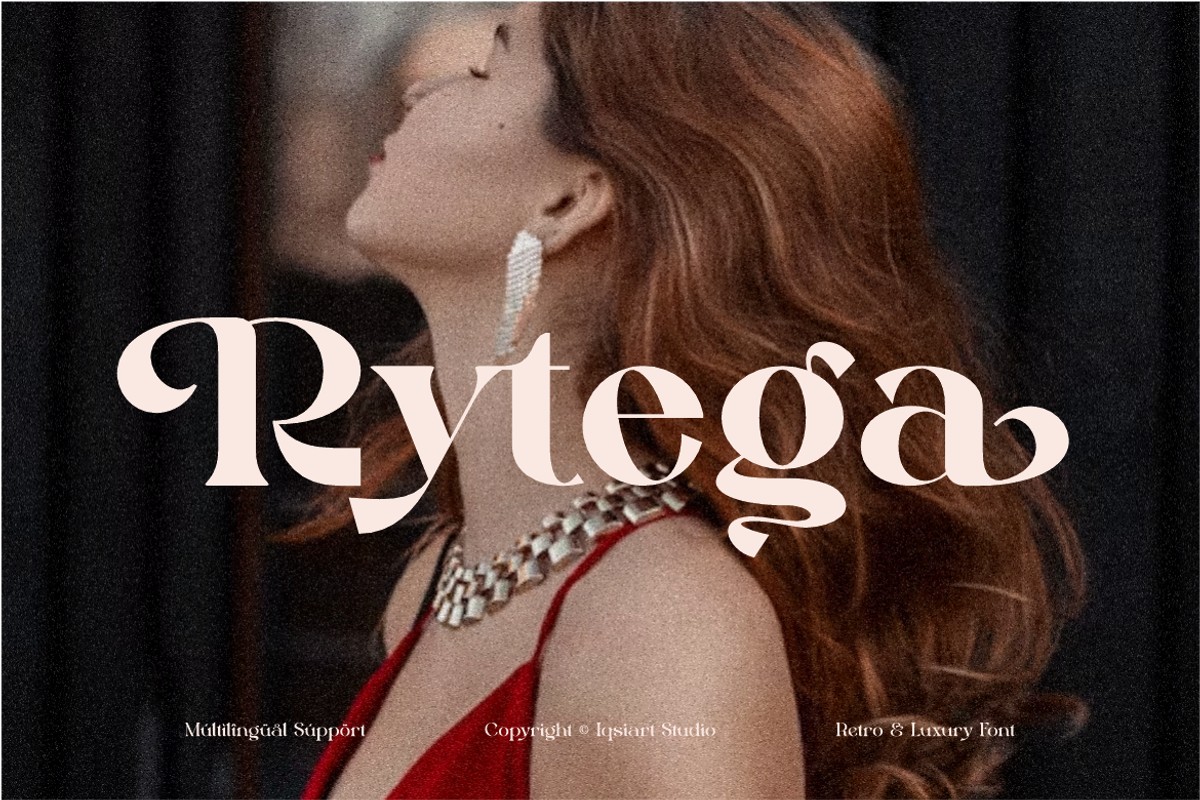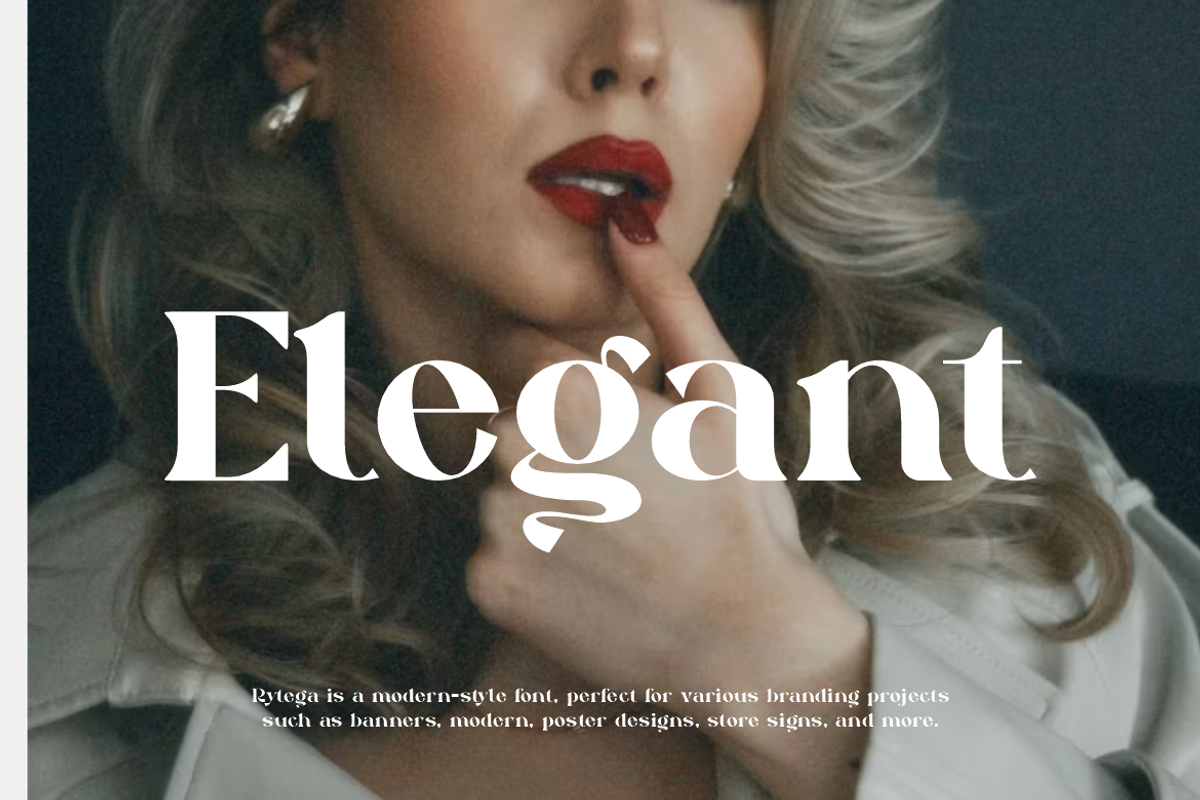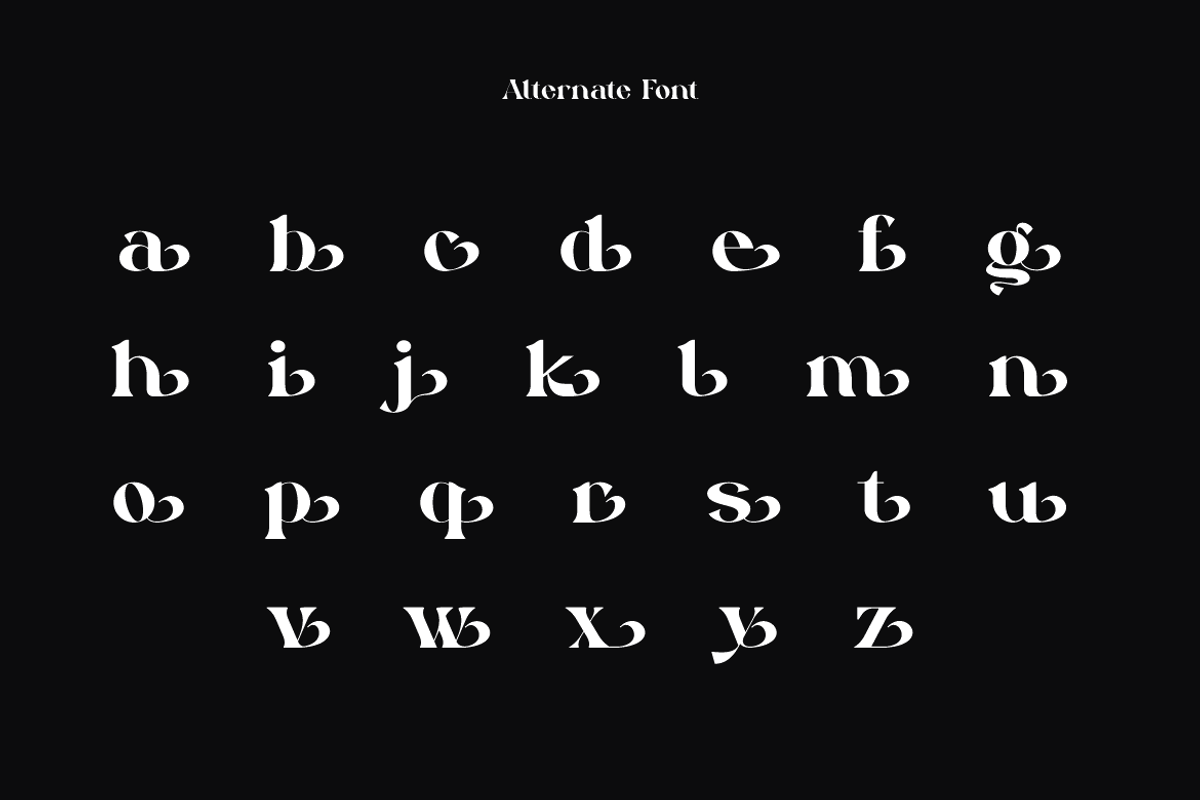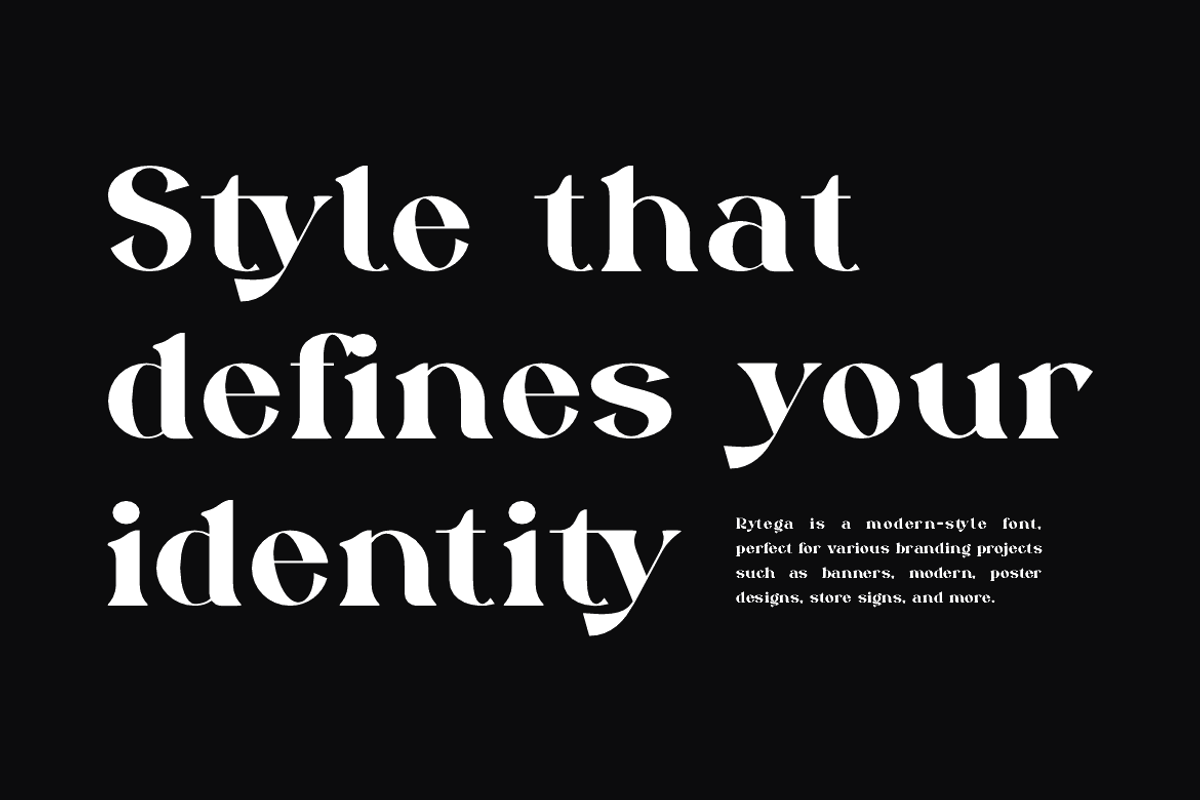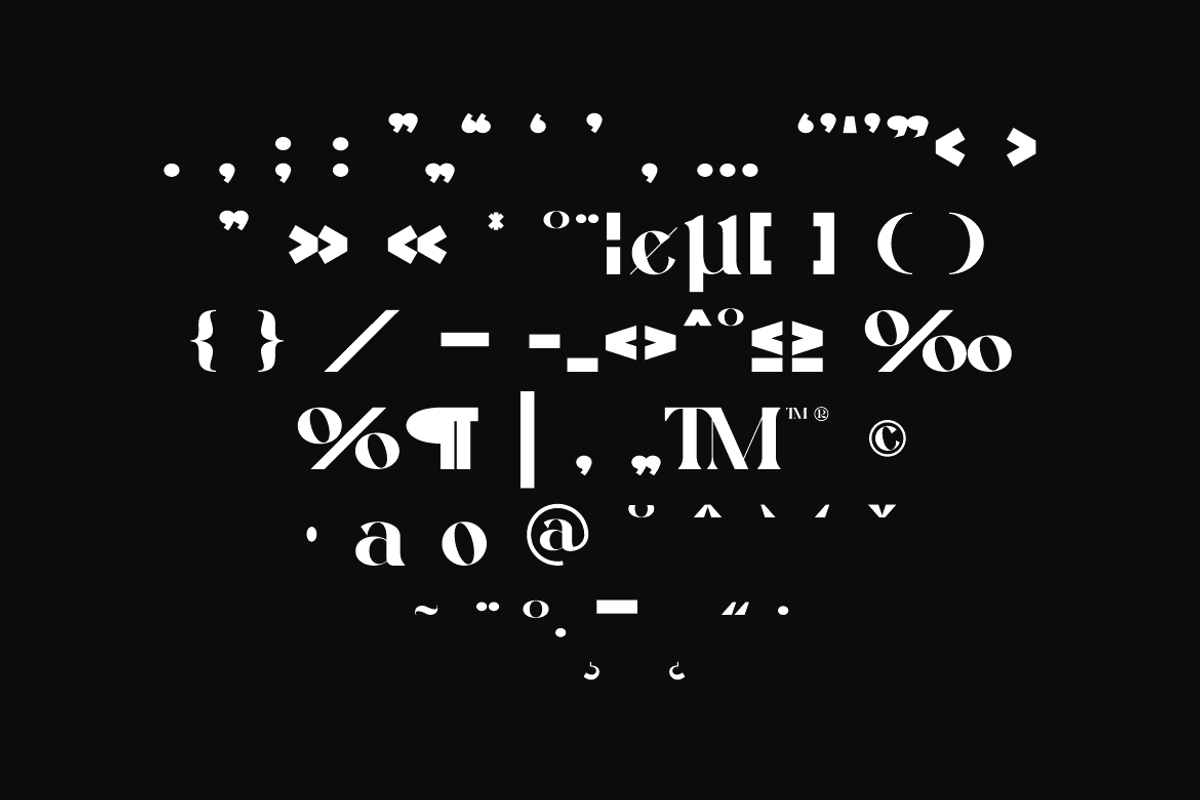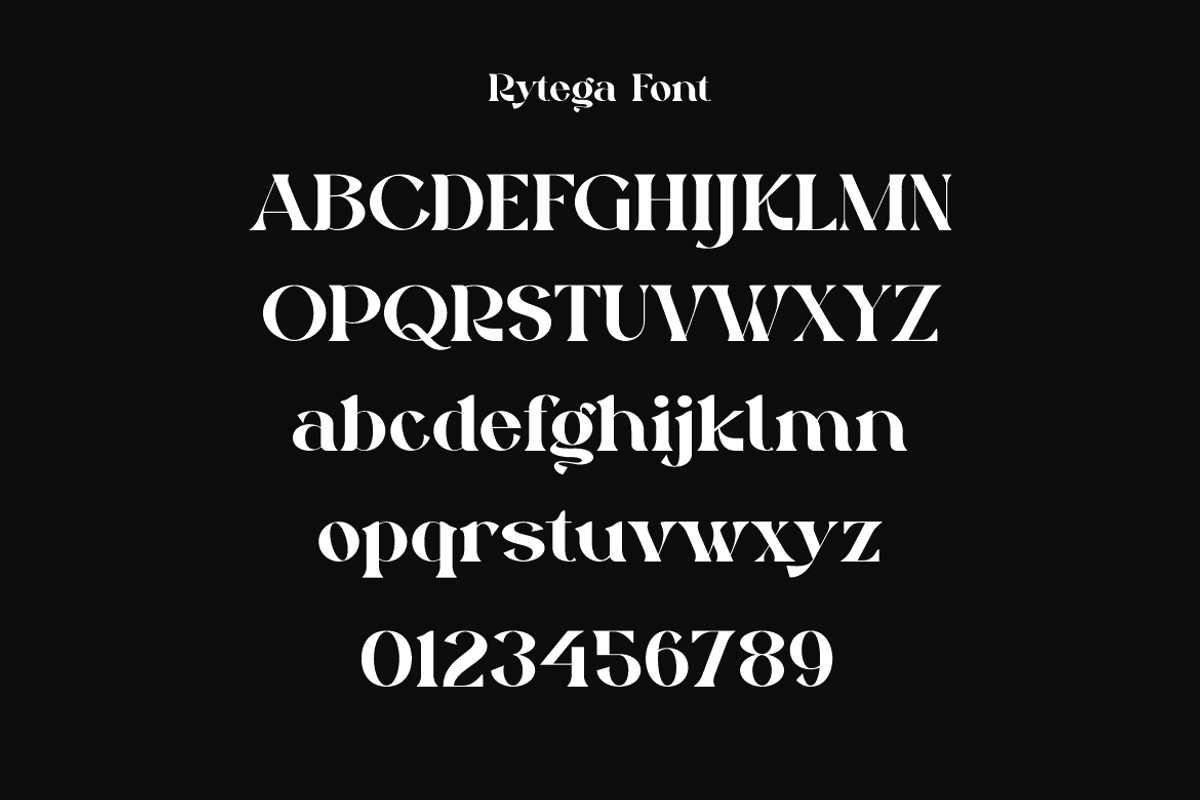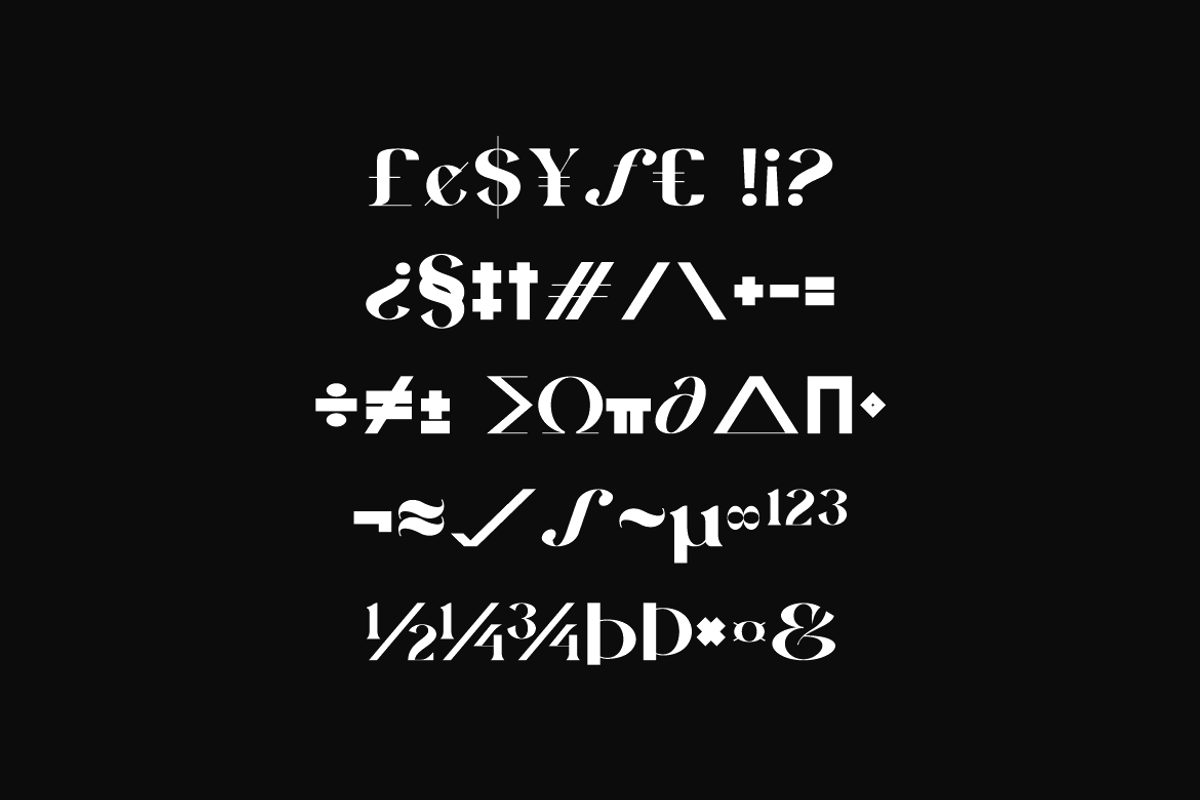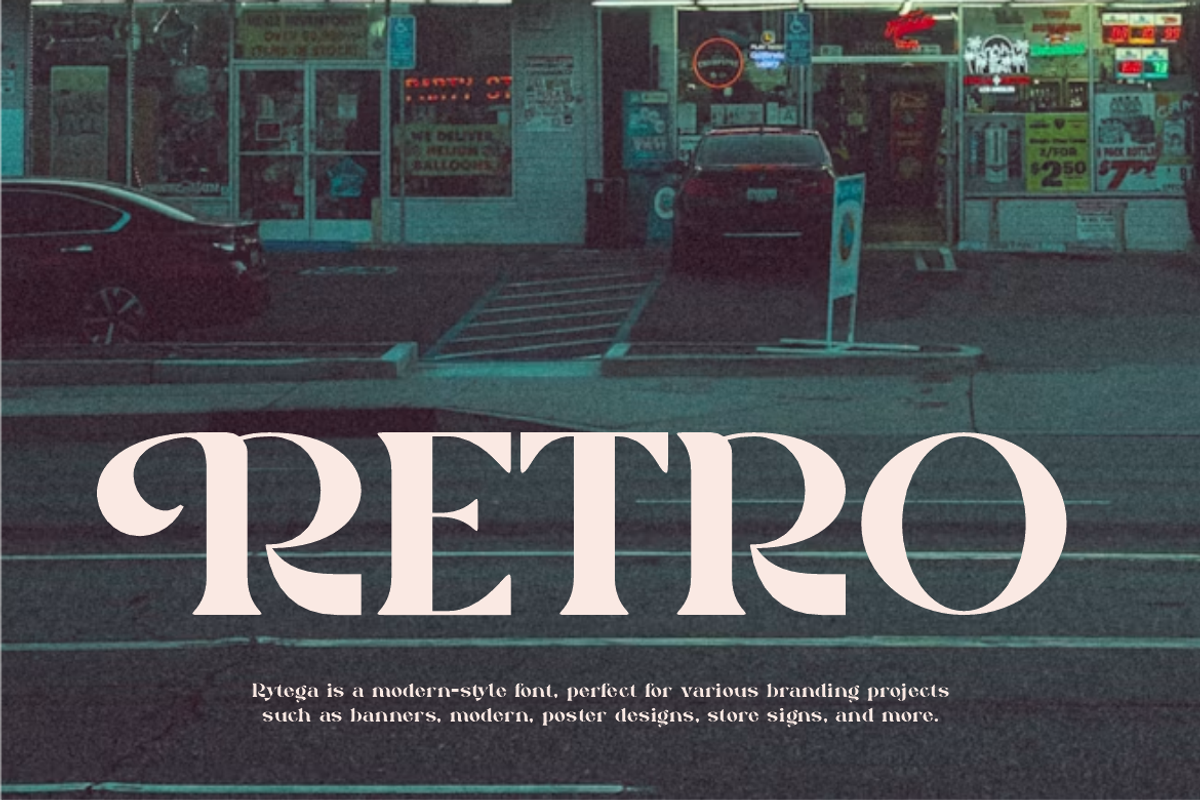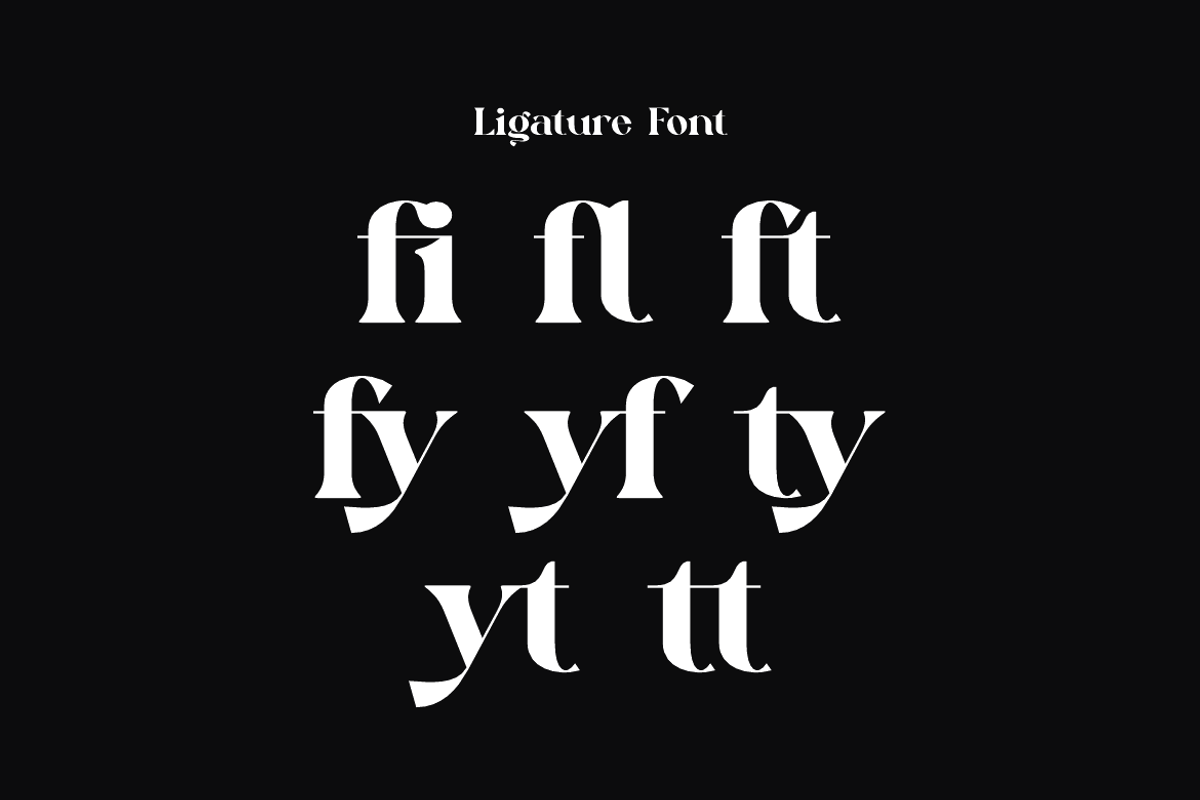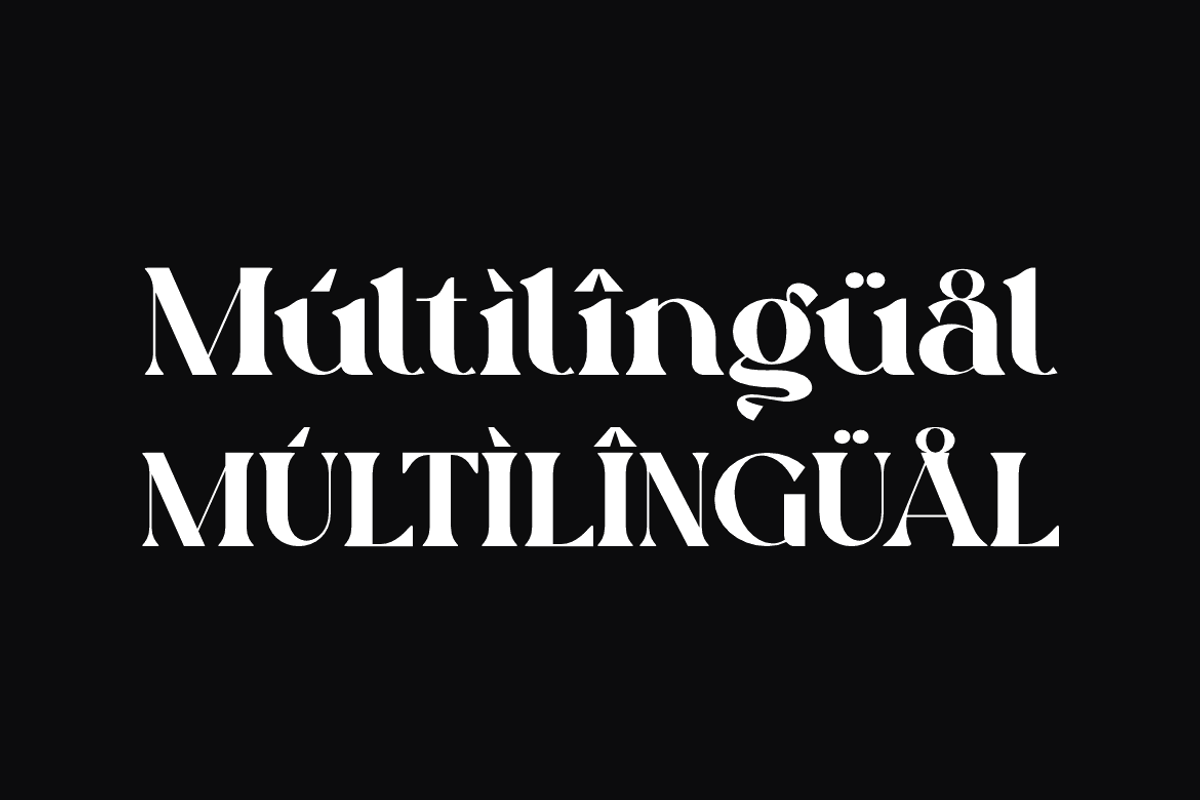
Rytega - Luxury Retro Font
Rytega Font is a serif and authentic display typeface
that suits a variety of design needs. We offer a wide range of themes